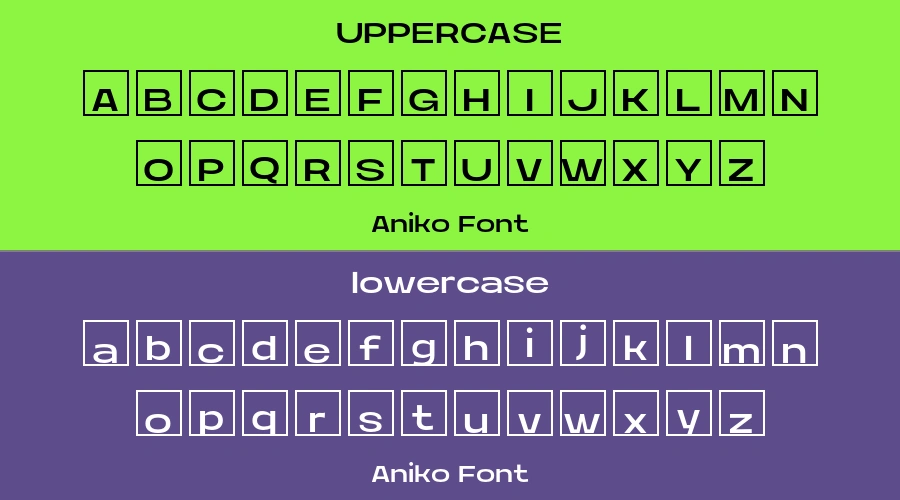
About Aniko Font
Aniko Font stands out for its distinctive combination of unique personality and durability. Ideal for brand launches, it provides the craftsmanship and sophistication that professional projects demand. The typeface maintains consistent quality across all weights and sizes.
Key features include refined harmonic curves and practical numerator/denominator, enhancing typographic expression. In running text applications, Aniko Font demonstrates exceptional brand recognition. The descender depth and artistic influences contribute to its distinctive character and professional appeal.